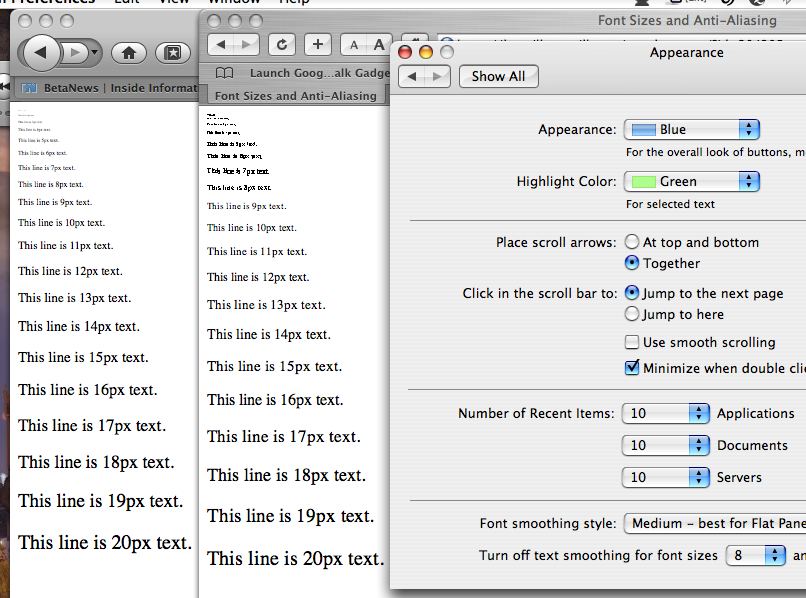
I was comparing Firefox 3 (beta 4) and Safari 3.1 and I came across a strange difference in the way those two programs display fonts. Is this normal? Or am I just weird?
The fonts on Safari look a lot sharper and more legible than those in Firefox, and sometimes Safari uses a different font than Firefox. I have the default preferences on both browsers.
Is it possible that this will be fixed by Firefox 3 final? I love some of the new features of Fx 3, but the fonts are holding me back from switching.
To see what I mean, try opening this message board or the GameFAQs message board in both browsers.
I know this is caused by the behavior that firefox ignores the system setting of font AA, it insist on AA all the fonts.
Im not sure if firefox 3 will do anything to it, I saw several outstanding bugs related to this. I will let you know if I figure a way around this.
Thanks, this is what I mean. Would this cause the font differences when comparing the two browsers (like on the MacRumors homepage)?
I saw that report two, I see no answer tho.. Firefox 3 is switching to cairo, there may be improvement coming from that end.